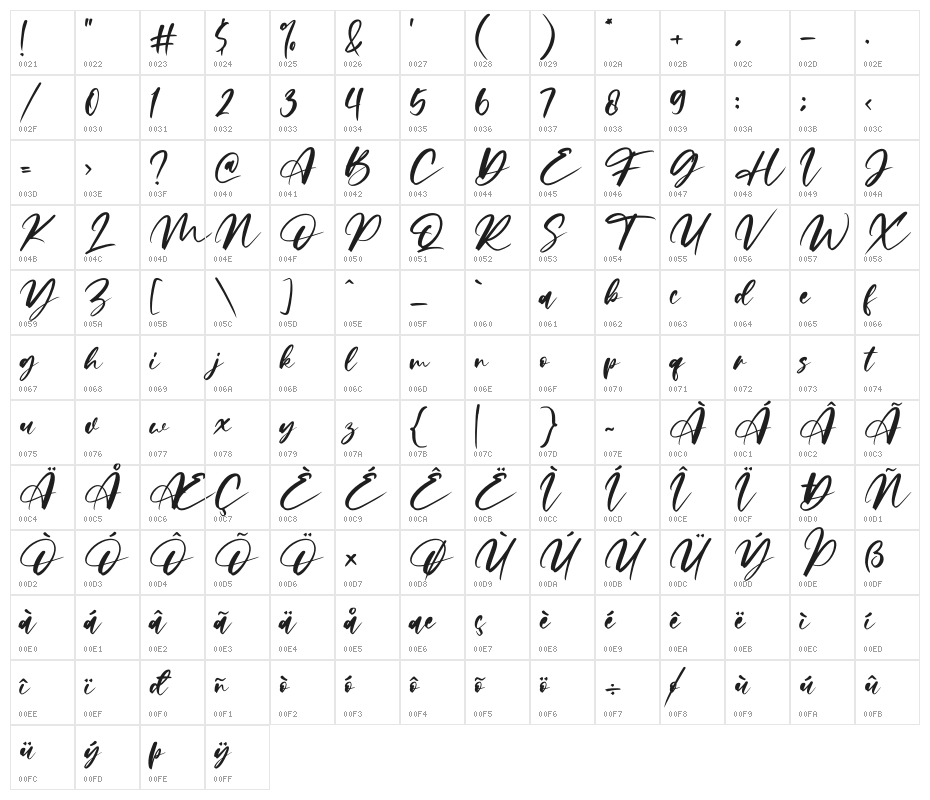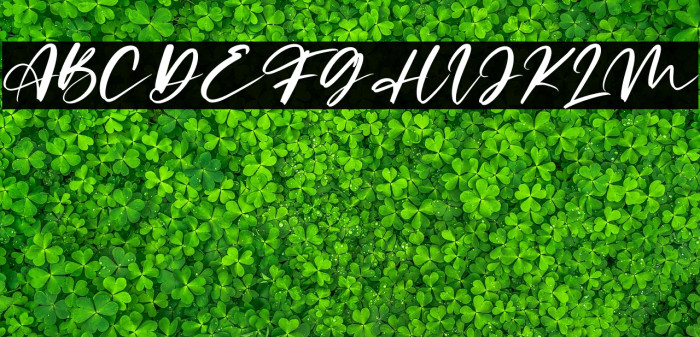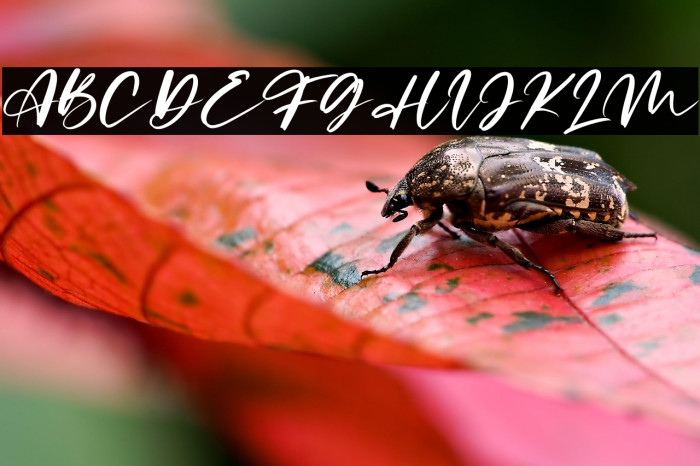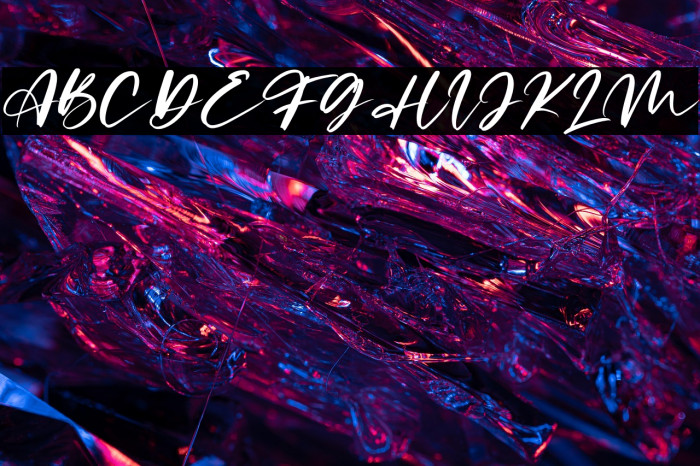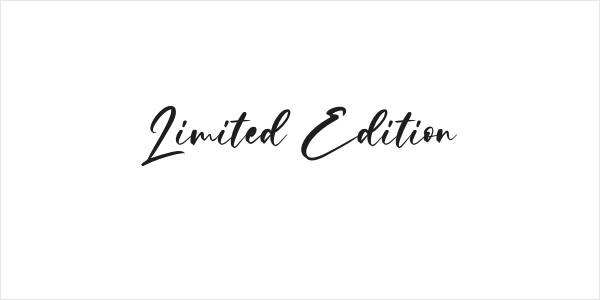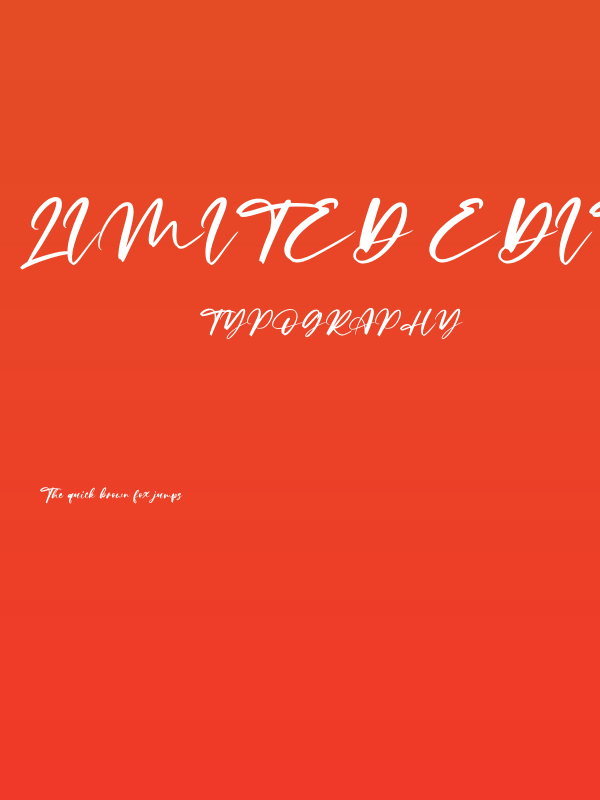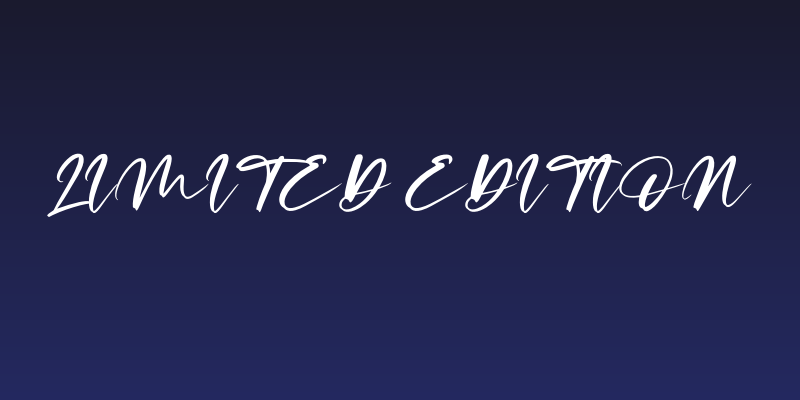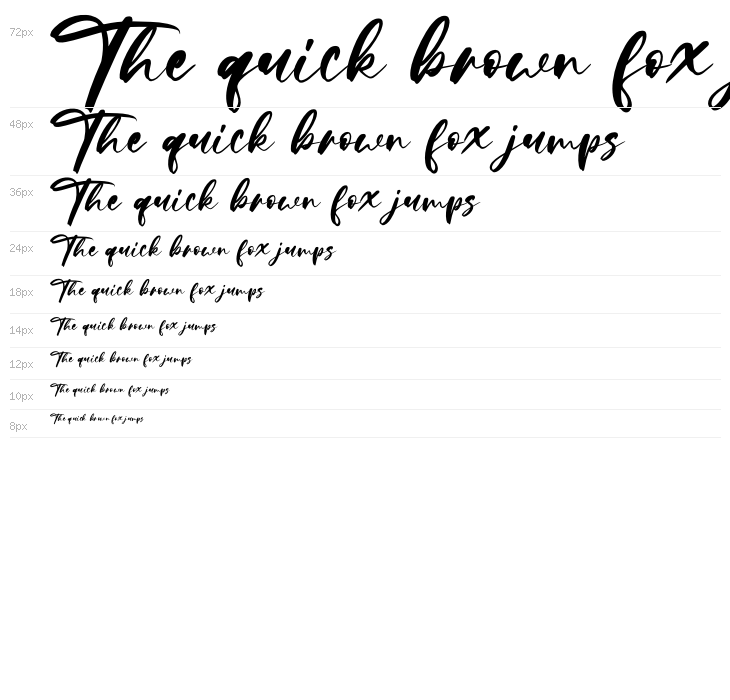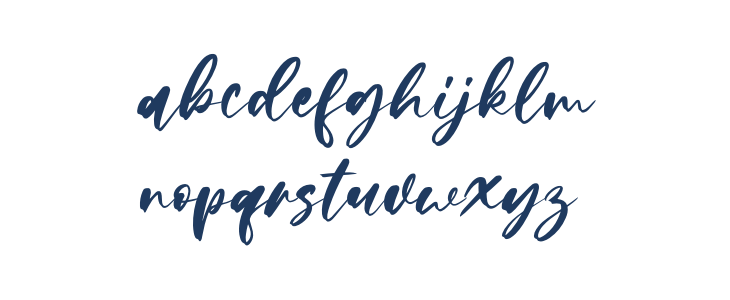
Limited Edition Font
Limited Edition Description
This font exudes a lively and expressive character, featuring fluid and dynamic strokes that mimic the natural flow of handwriting. The uppercase letters are elegantly crafted with sweeping curves and a slight slant, giving them a sense of motion and grace. The lowercase letters maintain a consistent style, with rounded forms and smooth connections that enhance readability. The numerals are bold and slightly condensed, ensuring they stand out while maintaining harmony with the overall design. Special characters are thoughtfully integrated, complementing the font's artistic flair. This typeface is perfect for projects that require a personal touch, such as invitations, greeting cards, or branding materials that aim to convey warmth and creativity.
Use CaseLogos, Headlines, Invitations
Proposed ProjectsIdeal for invitations, greeting cards, branding materials, and creative projects requiring a personal touch.